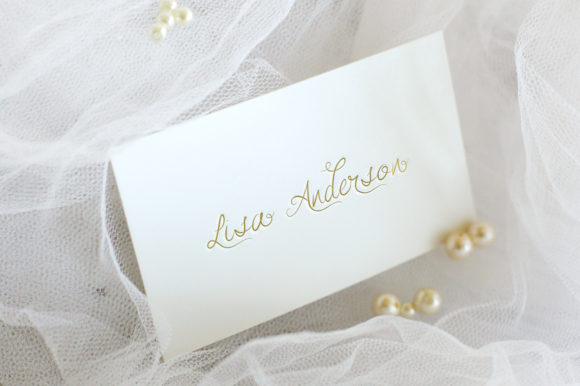
HomeScript FontsAlamanda Font Script Fonts Alamanda Font FacebookXPinterestWhatsApp Alamanda Font Poster 2 About Alamanda Font Alamanda is a beautiful script with incredibly romantic swashes. Fall in love with its delicate charm. DOWNLOAD NOW People also explored Sparkling Font Hamilton Campbell Sore Font Vacation Font Austing Font Hefton Velvet Margareth Gretal Font Chocolate Bar Font 289 0 TagsAlamanda Font Previous articleBonjour FontNext articleJust Write Font LEAVE A REPLY Cancel reply Comment: Please enter your comment! Name:* Please enter your name here Email:* You have entered an incorrect email address! Please enter your email address here Website: Save my name, email, and website in this browser for the next time I comment. Personal Use Free Good Mood Personal Use Free Read more about this font Snaily Personal Use Free Read more about this font Zalitta Personal Use Free Read more about this font Milda Personal Use Free Read more about this font BLOG Best Fonts for T-Shirt Design – Top 2025 Picks In 2025, t-shirt design has become more than just fashion—it's a form of self-expression. Whether you're... Transform Your Website: Elevate Your Typography with 7 Best Web Font Generators Top 7 Google Fonts Alternatives for Faster and Privacy-Friendly Web Design (2025) To increase your work productivity, choose the most readable fonts.